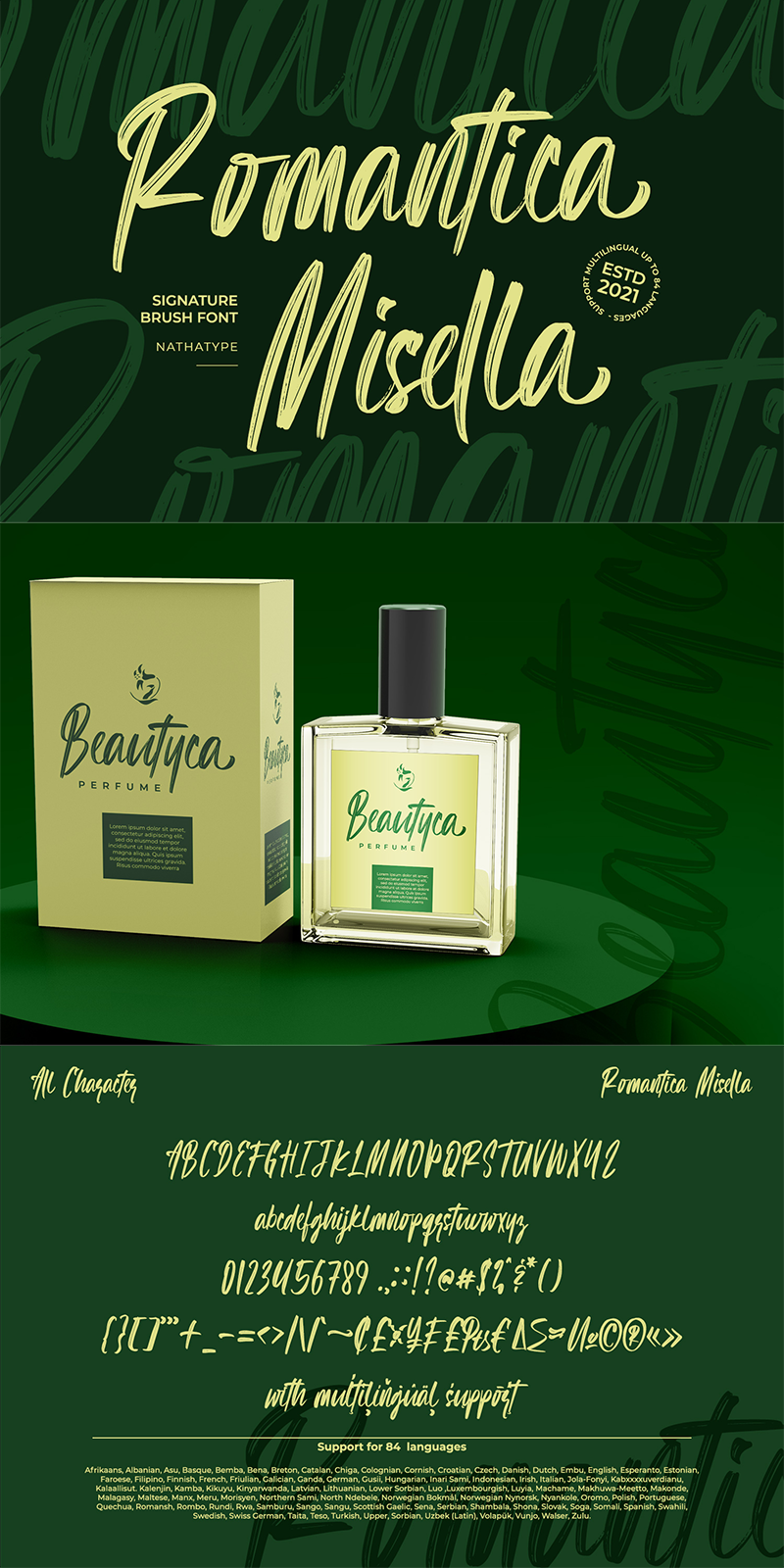
Romantica Misella Font
About Romantica Misella
Romantica Misella is a graceful script font that embodies elegance and sophistication. Each letter in Romantica Misella is meticulously crafted to resemble a signature, adding a personal touch to your text. The brush details add depth and texture to the font, giving it a handcrafted feel.
What sets Romantica Misella apart is its low contrast, which adds to its understated elegance. The subtle variations in line weight create a soft and inviting texture, making it easy on the eyes and perfect for longer passages of text. In addition, enjoy the features here.